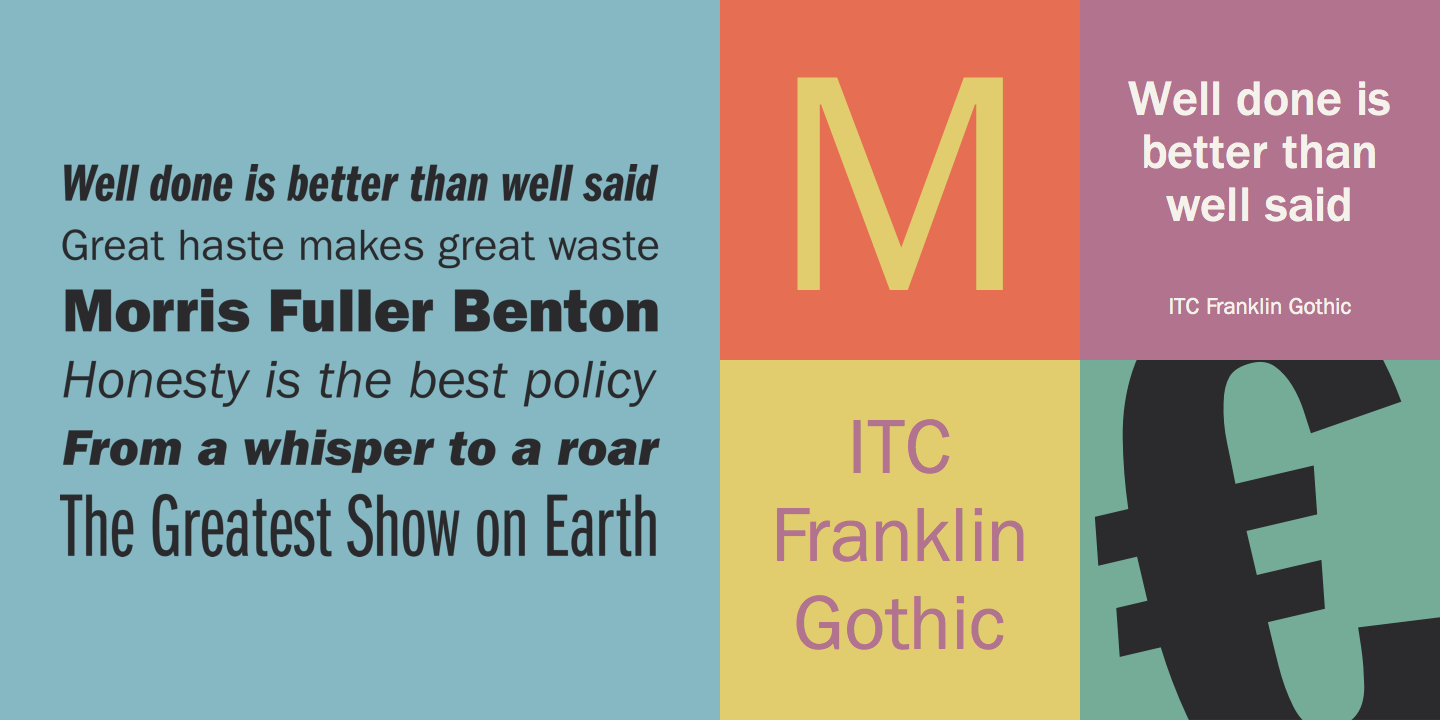
ITC Franklin Gothic LT Font is masterfully designed for professional corporate communications, newspaper headlines, magazine layouts, business presentations, industrial signage systems, government documentation, academic publications, and authoritative branding projects. This distinguished typeface excels in environments requiring clarity and institutional credibility, making it perfect for financial institutions, government agencies, educational organizations, and any business needing to communicate reliability and professional authority through proven typography.
What makes ITC Franklin Gothic LT Font so exciting is its exceptional legacy as one of America's most trusted and widely-used typefaces, combining historical significance with contemporary functionality that has proven its effectiveness across decades of professional applications. The font features robust letterforms with strong character definition and excellent readability that have made it a standard choice for serious communications. Its authoritative construction and time-tested appeal make it incredibly reliable for brands wanting to communicate trustworthiness, stability, and professional competence while leveraging typography with proven track record.
ITC Franklin Gothic LT Font typically includes an extensive family with multiple weights such as Book, Medium, Demi, and Heavy, often accompanied by matching Italic and Condensed variations. The font family frequently features additional width variants including Compressed and Extended versions to accommodate diverse layout requirements. Each weight maintains the font's distinctive authoritative character while offering different levels of visual emphasis, providing designers with comprehensive typographic solutions for complex institutional communications and professional document systems.
Professional communicators will discover that ITC Franklin Gothic LT Font Free Download delivers superior performance across all traditional and digital media applications requiring institutional credibility. The font's proven OpenType features include extensive character sets supporting multiple languages, professional-grade numerals, and specialized punctuation marks essential for formal documentation and international business communications. Its established reputation makes it particularly effective for financial reports, government publications, academic journals, and corporate branding requiring unquestioned professional authority.
The careful attention to optical consistency and character spacing ensures that ITC Franklin Gothic LT Font maintains exceptional readability across all sizes while preserving its authoritative presence. Its institutional design language makes it exceptionally suitable for banking communications, government agencies, educational institutions, and established corporations. The font's trusted appearance creates immediate credibility while remaining highly functional across different media platforms and professional contexts.
For designers seeking a typeface that embodies institutional authority with proven reliability, ITC Franklin Gothic LT Font Free Download represents an essential choice that will strengthen any project with its distinctive credibility and professional heritage.